Neubau
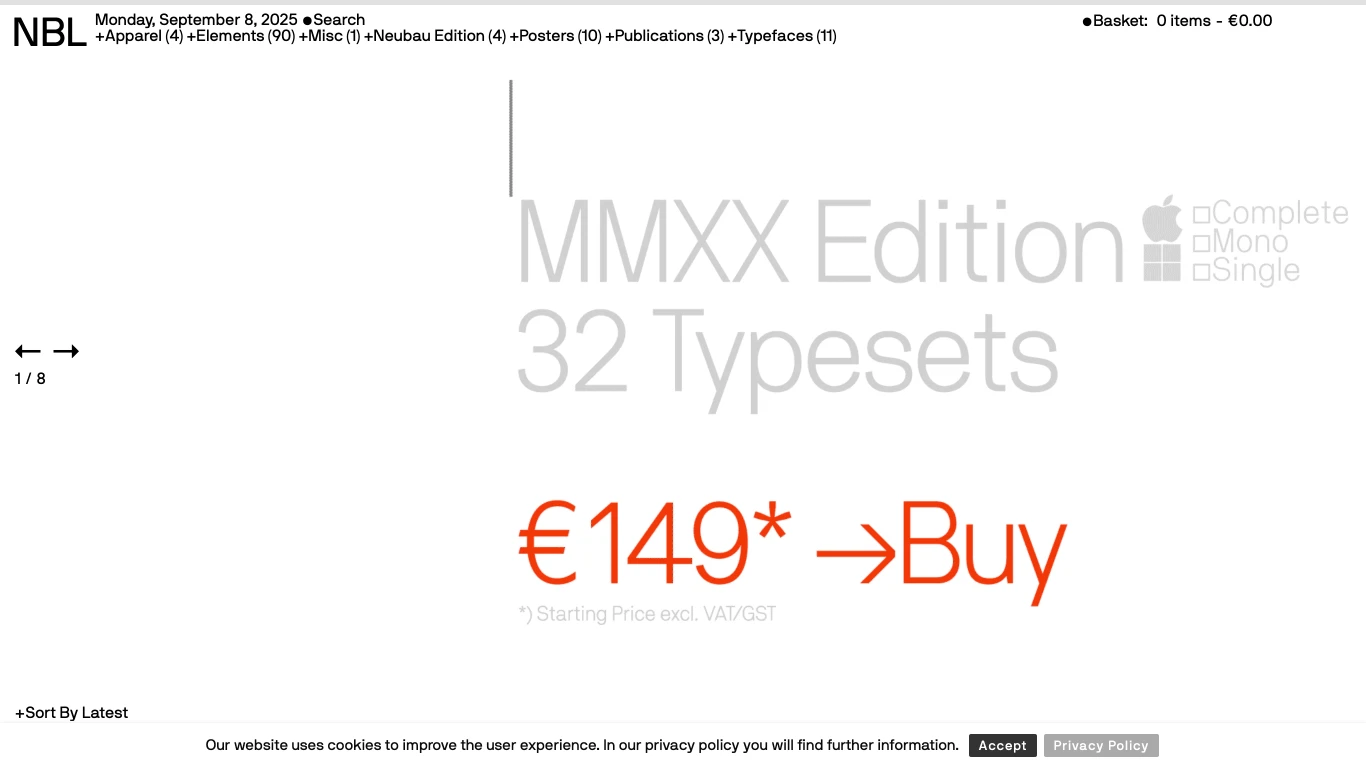
Germany
2001
Neubau Laden is a Berlin-based type foundry and design studio founded in 2001 by designer Stefan Gandl. The studio is renowned for its systematic approach to type design, focusing on functional and expressive type systems for print, screen, and space. Neubau Laden’s typefaces, such as NB Grotesk, NB International, and NB Akademie, are known for their clean, grid-based structures and versatility. Their fonts have been used by clients like Nike Futebol, EnBW, and Wieden+Kennedy. The studio’s work has been featured in design exhibitions and publications.